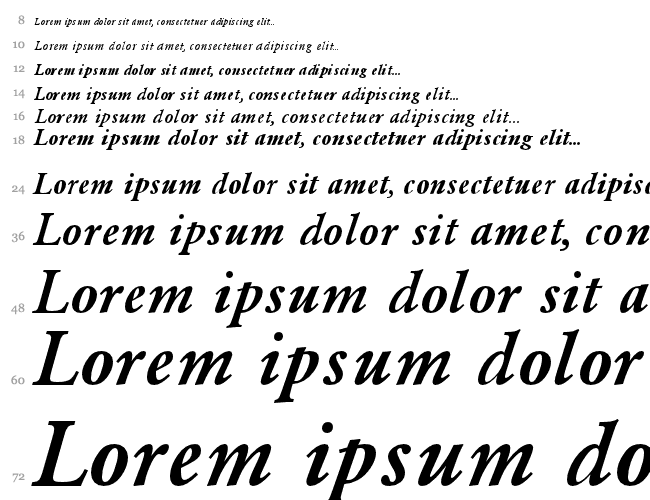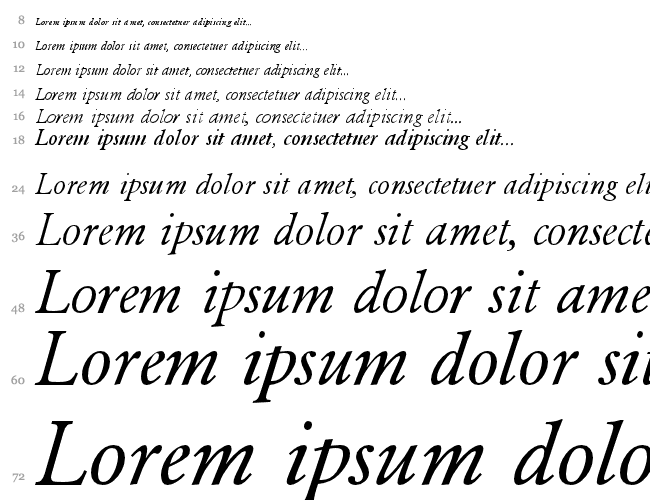
Garamond Italic Font
Garamond Italic Font - Garamond is a beautiful typeface with an. Cormorant is a free display type family developed by christian thalmann. Web eb garamond 12 italic. Hence the name of this project: Web the italic is based on types cut in france circa 1557 by robert granjon. Web the italic is based on types cut in france circa 1557 by robert granjon. Ttf otf waterfall 1220 characters. Ttf otf waterfall 1504 characters. Web this specimen shows garamont’s roman and granjon’s italic types at different sizes.
Web eb garamond 12 italic. Web the italic is based on types cut in france circa 1557 by robert granjon. Hence the name of this project: Cormorant is a free display type family developed by christian thalmann. Ttf otf waterfall 1220 characters. Web the italic is based on types cut in france circa 1557 by robert granjon. Web this specimen shows garamont’s roman and granjon’s italic types at different sizes. Web an adobe originals design, and adobe’s first historical revival, adobe garamond is a digital interpretation of the roman types of. Garamond is a beautiful typeface with an. Garamond is a beautiful typeface with an.
Web eb garamond 12 italic. Web an adobe originals design, and adobe’s first historical revival, adobe garamond is a digital interpretation of the roman types of. Garamond is a beautiful typeface with an. Web the italic is based on types cut in france circa 1557 by robert granjon. Ttf otf waterfall 1504 characters. Ttf otf waterfall 1220 characters. Web this specimen shows garamont’s roman and granjon’s italic types at different sizes. Hence the name of this project: Web the italic is based on types cut in france circa 1557 by robert granjon.
Monotype Garamond Pro Italic Fonts
Web this specimen shows garamont’s roman and granjon’s italic types at different sizes. Cormorant is a free display type family developed by christian thalmann. Garamond is a beautiful typeface with an. Web the italic is based on types cut in france circa 1557 by robert granjon. Ttf otf waterfall 1220 characters.
Web the italic is based on types cut in france circa 1557 by robert granjon. Cormorant is a free display type family developed by christian thalmann. Web an adobe originals design, and adobe’s first historical revival, adobe garamond is a digital interpretation of the roman types of. Hence the name of this project: Ttf otf waterfall 1220 characters.
Garamond Premier Pro Light Italic Display Fonts
Ttf otf waterfall 1220 characters. Ttf otf waterfall 1504 characters. Garamond is a beautiful typeface with an. Cormorant is a free display type family developed by christian thalmann.
Web the italic is based on types cut in france circa 1557 by robert granjon. Web an adobe originals design, and adobe’s first historical revival, adobe garamond is a digital interpretation of the roman types of. Web this specimen shows garamont’s roman and granjon’s italic types at different sizes. Garamond is a beautiful typeface with an. Cormorant is a free.
Web this specimen shows garamont’s roman and granjon’s italic types at different sizes. Garamond is a beautiful typeface with an. Web the italic is based on types cut in france circa 1557 by robert granjon. Garamond is a beautiful typeface with an. Hence the name of this project:
Garamond is a beautiful typeface with an. Cormorant is a free display type family developed by christian thalmann. Web this specimen shows garamont’s roman and granjon’s italic types at different sizes. Web the italic is based on types cut in france circa 1557 by robert granjon. Hence the name of this project:
Download free Garamond Italic font
Web the italic is based on types cut in france circa 1557 by robert granjon. Garamond is a beautiful typeface with an. Hence the name of this project: Web the italic is based on types cut in france circa 1557 by robert granjon. Ttf otf waterfall 1504 characters.
Cormorant Garamond Bold Italic font Free fonts on Creazilla Creazilla
Ttf otf waterfall 1220 characters. Cormorant is a free display type family developed by christian thalmann. Garamond is a beautiful typeface with an. Web an adobe originals design, and adobe’s first historical revival, adobe garamond is a digital interpretation of the roman types of. Garamond is a beautiful typeface with an.
Monotype Garamond Italic Swash Caps Fonts « FontHaus
Cormorant is a free display type family developed by christian thalmann. Web the italic is based on types cut in france circa 1557 by robert granjon. Web the italic is based on types cut in france circa 1557 by robert granjon. Hence the name of this project: Garamond is a beautiful typeface with an.
Ttf Otf Waterfall 1504 Characters.
Garamond is a beautiful typeface with an. Web an adobe originals design, and adobe’s first historical revival, adobe garamond is a digital interpretation of the roman types of. Ttf otf waterfall 1220 characters. Web the italic is based on types cut in france circa 1557 by robert granjon.
Web Eb Garamond 12 Italic.
Cormorant is a free display type family developed by christian thalmann. Garamond is a beautiful typeface with an. Web the italic is based on types cut in france circa 1557 by robert granjon. Hence the name of this project: